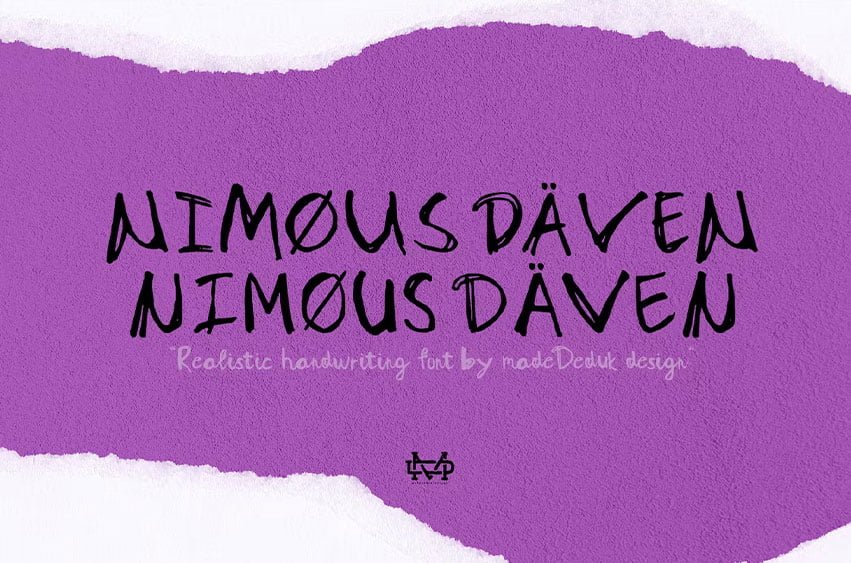
Nimous Daven Font is a distinct hand drawn font contains 50+ ligatures with two alternative. Nimous Daven is great for branding, posters, logos, invitation, writing and headings.